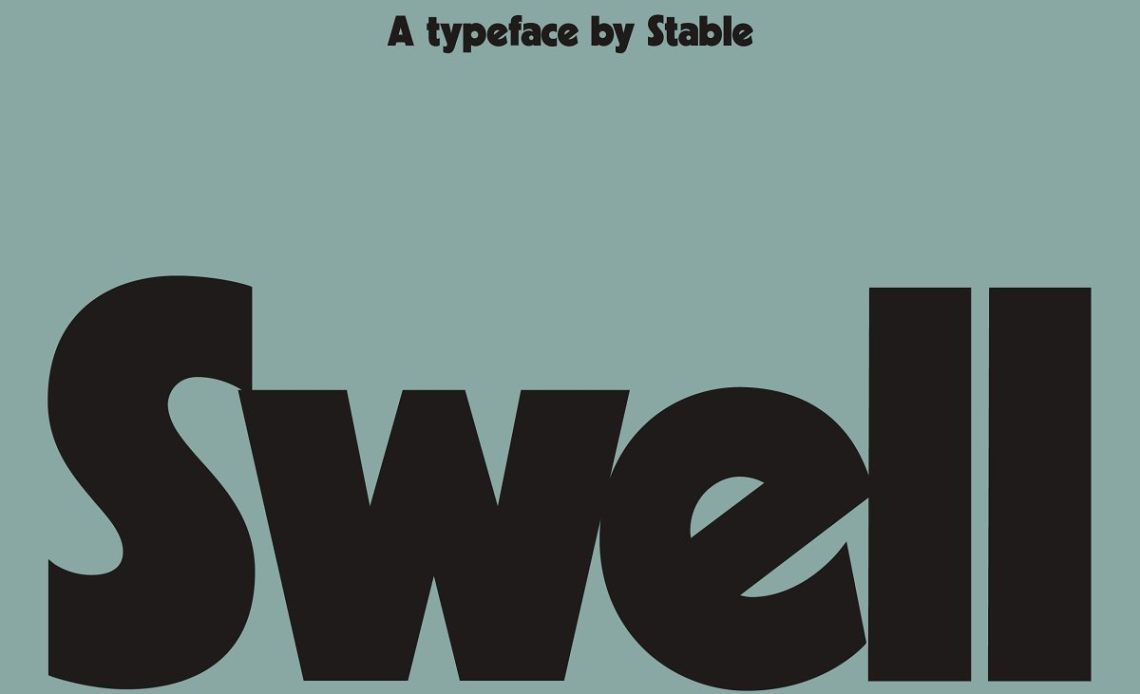
Introducing Swell - the ultimate display font for your design needs. Developed by the creative minds at Break Maiden, Swell is the perfect blend of modern and classic design elements. Inspired by Kabel Black, this bold, geometric sans typeface is a must-have for designers looking to make a statement.
With its extensive character set, Swell is perfect for creating eye-catching headlines, logos, and branding materials. Whether you're designing for print or digital media, Swell is the best font for Retina display, ensuring your designs look crisp and clear on every device.
What sets Swell apart from other fonts is its versatility. Featuring over 50 alternative glyphs inspired by other classics like Avante Garde, Marvin, and Blippo, Swell offers endless creative possibilities. From retro to modern, Swell can adapt to any design style, making it a valuable asset in any designer's toolkit.
But Swell isn't just a font, it's a work of art. Its sleek and stylish design evokes emotions of power, strength, and confidence, making it perfect for projects that require a bold statement. And with its surfing-inspired name, Swell captures the essence of adventure and excitement, making it the ideal font for projects that need a touch of fun and playfulness.
In summary, Swell is the ultimate display font for designers looking to elevate their designs. Its extensive character set, versatility, and stylish design make it the perfect font for any project. So why settle for ordinary when you can make a statement with Swell?